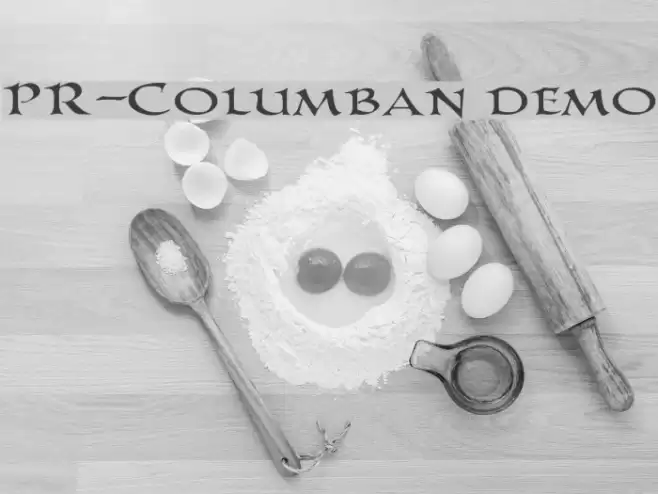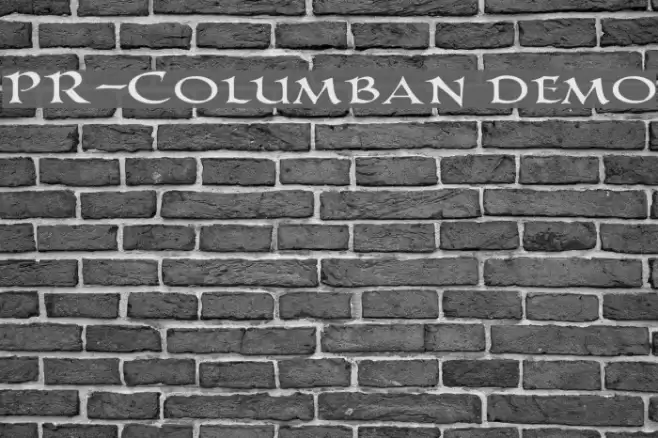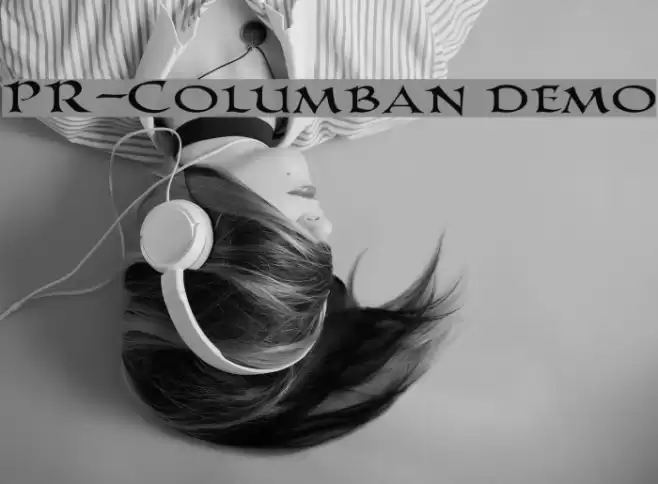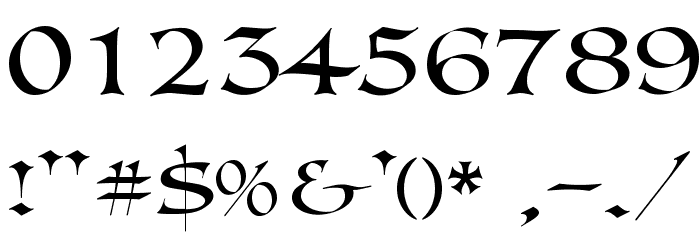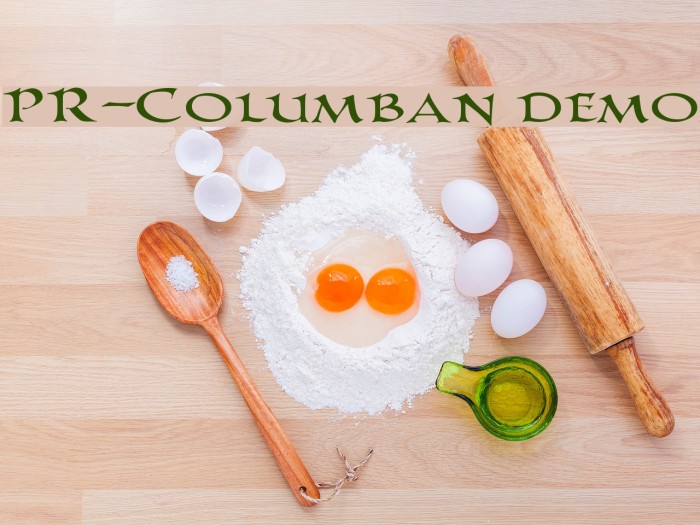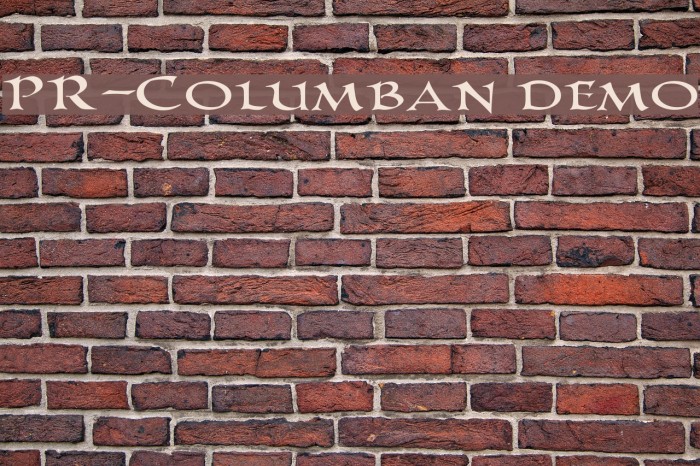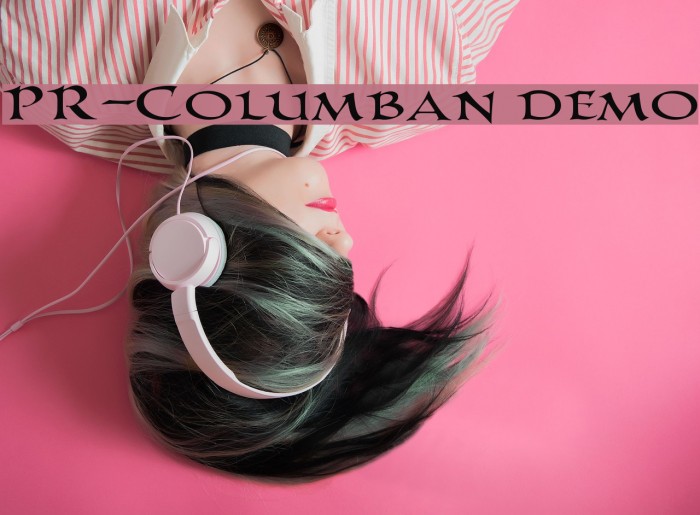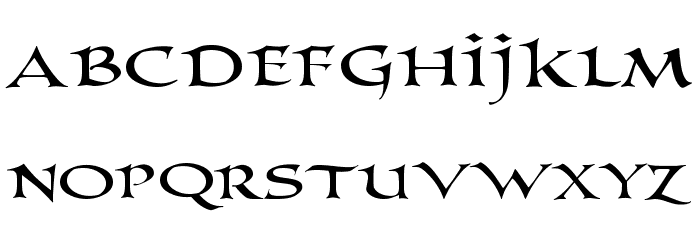
PR-Columban demo Font
PR-Columban demo Description
This font exhibits a classic and elegant style reminiscent of traditional calligraphy with a modern twist. The characters are sharply defined with pointed serifs and a slight curvature that adds a sense of movement and grace. The uppercase letters are particularly striking, with a bold presence that commands attention. The lowercase letters maintain a consistent style, offering a harmonious balance with the uppercase. Numbers are clear and distinct, making them easily readable. Special characters are designed with the same attention to detail, ensuring they complement the overall aesthetic. This font is ideal for projects that require a touch of sophistication and historical flair.
A classic, calligraphic font with sharp serifs and elegant curves from Uncategorized fonts.
- Proposed Projects: Ideal for wedding invitations, historical documents, book covers, and branding that requires a classic touch.
- Overall Style: Classic